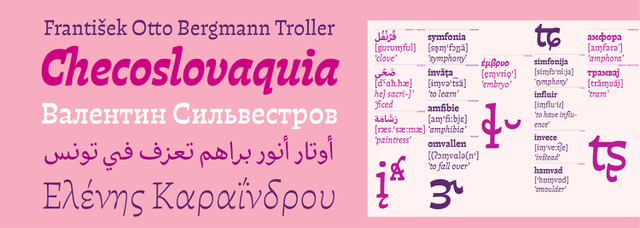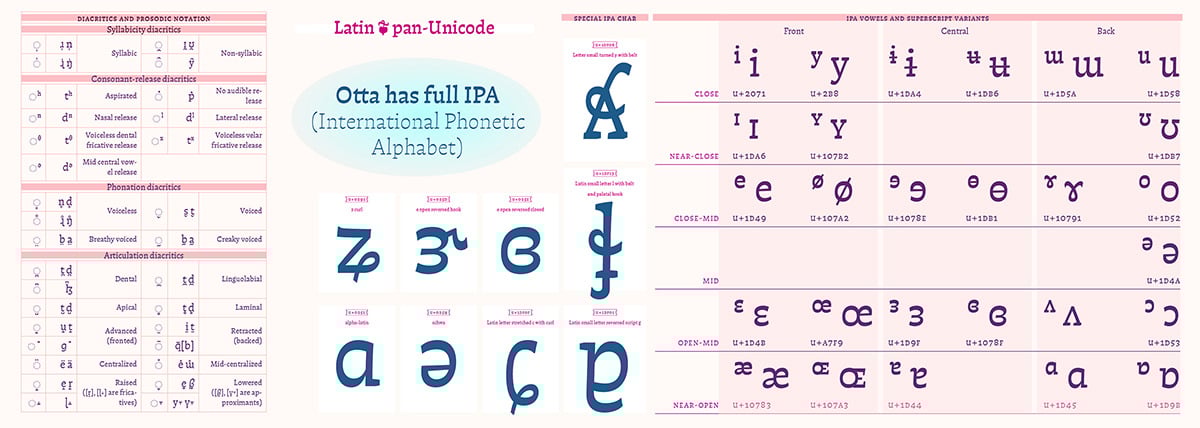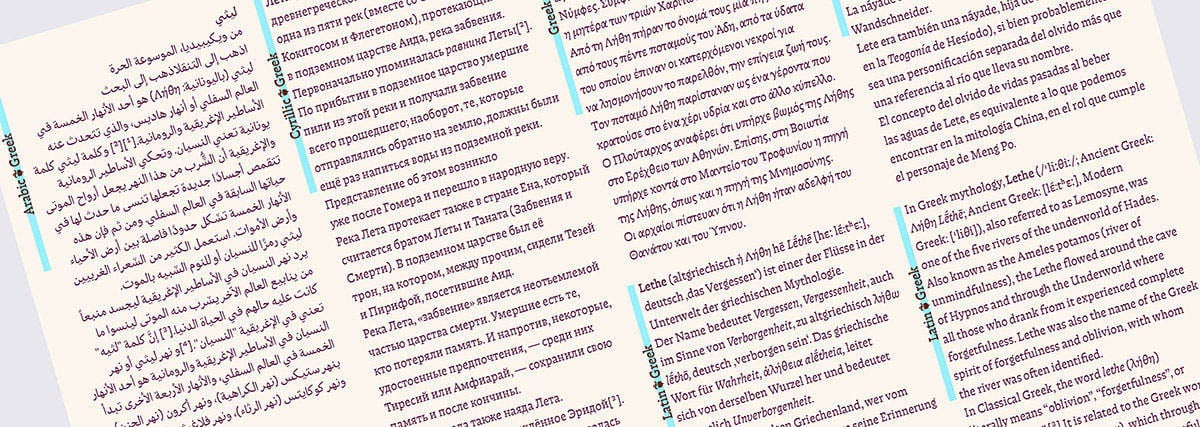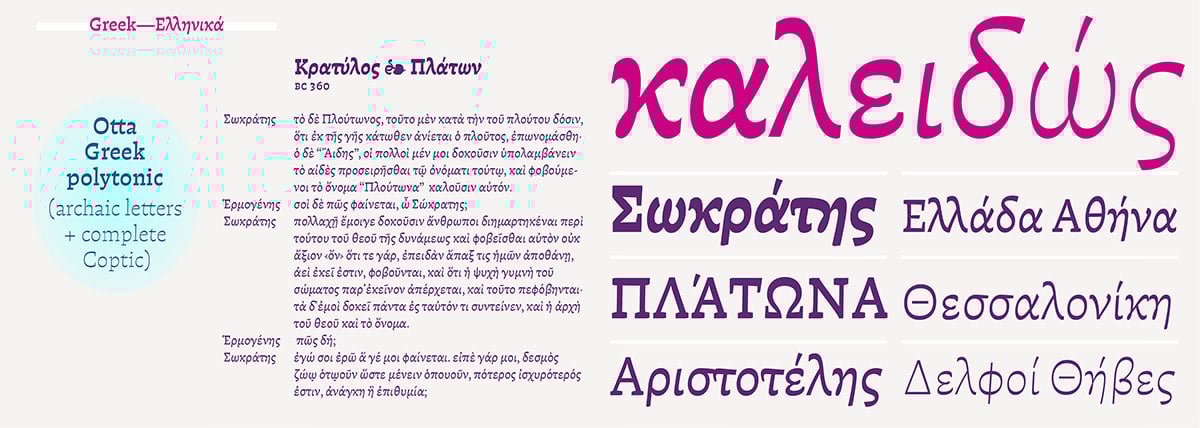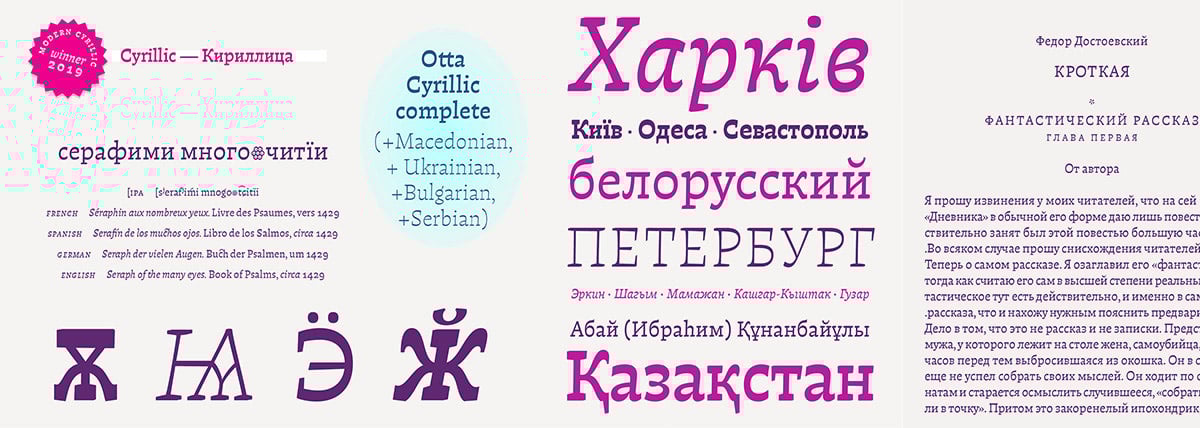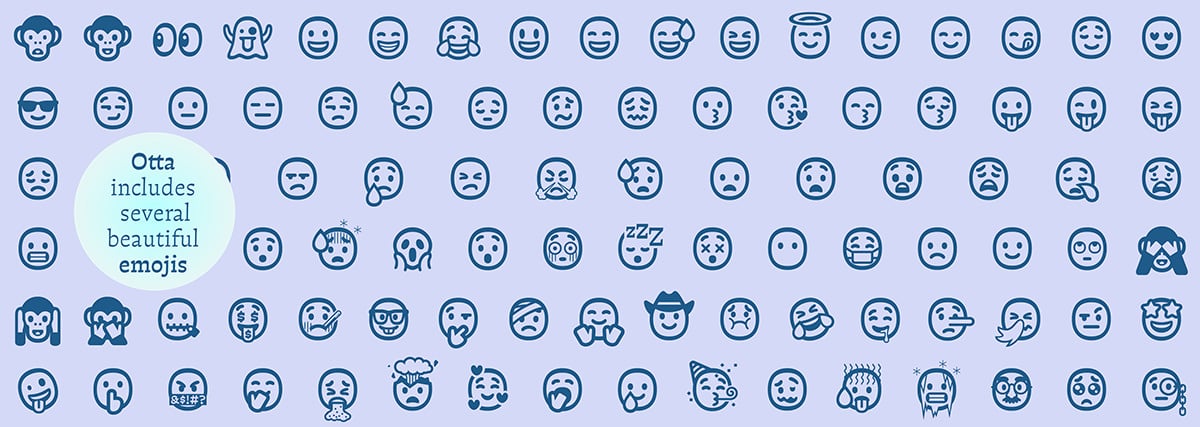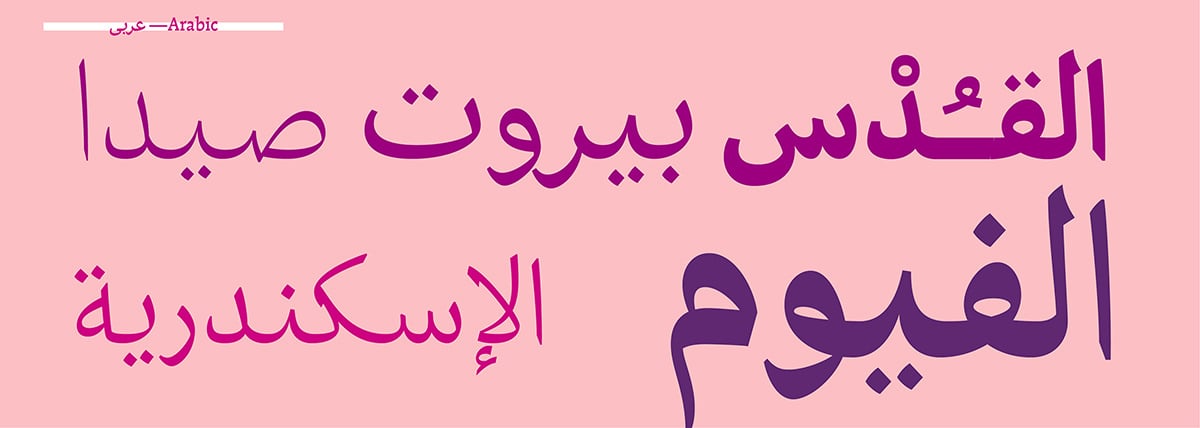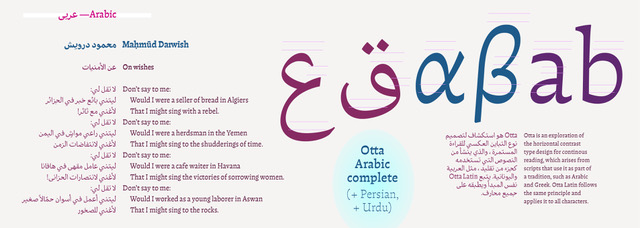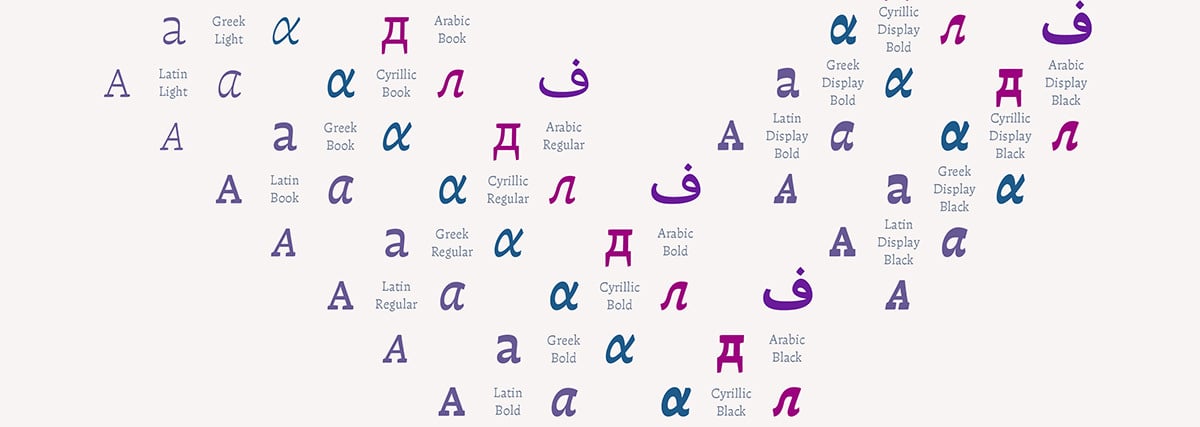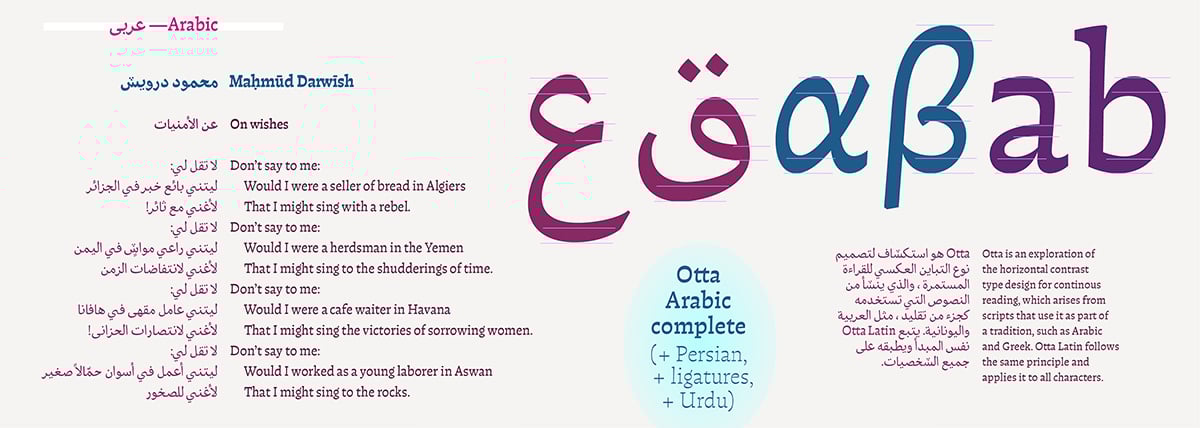
Otta, a new multi-script typeface
A versatile design that integrates a dynamic sense of writing, suitable for immersive reading, with a hand-drawn, artisanal essence.
As a sensitive counter-response to the advance of AI in all fields, Otta aims to vibrate on a profoundly human frequency. Its gentle, organic tone seeks a return to the human sense, to the delicacy of the artisanal and the handmade. Otta has been carefully drawn under a criterion of rhythm that aims to synthesize both calligraphic and typographic forms suitable for continuous reading. Like other typefaces in the PampaType library, Otta is also the result of an exploration of horizontal contrast in type design, this time following the example of scripts that use it as part of their tradition, such as Arabic and Greek.
Otta is an ambitious multi-script family, it was specifically designed by Francisco to compose his own book on typography “Hacer y Componer” (‘Making and Composing’) — a must-read for type lovers, in which he needed to combine on a single page various scripts in a harmonious way. This first edition of Otta includes complete Arabic, extended Cyrillic (with Bulgarian, Macedonian, Serbian, Ukrainian), complete modern & ancient Greek (with archaic letters, Coptic, Nubian), and Latin pan-Unicode (with IPA–International Phonetic Alphabet, PanAfrican, Pinyin, Vietnamese), emojis and more.
Foundry: PampaType
Designer: Francisco Gálvez Pizarro
10 text styles: Light/Book/Regular/Bold/Black + Italics
4 display styles: DisplayBold/DisplayBlack + Italics